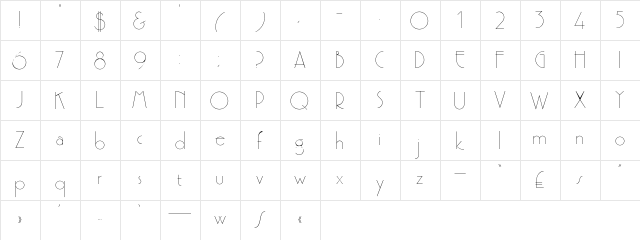
PremiumThin Regular
Design Context for PremiumThin Typeface
PremiumThin offers clean, dependable letterforms without strong stylistic allegiance, making it a practical choice for designers who need flexibility. The delicate stroke weight brings airiness and refinement to layouts.
Pro Tip: Use PremiumThin in both headline and body roles to test its range before committing to a single application.